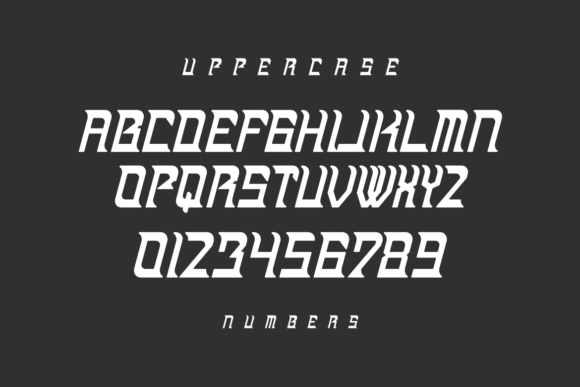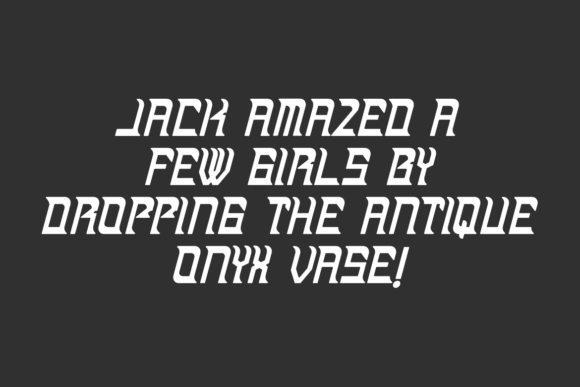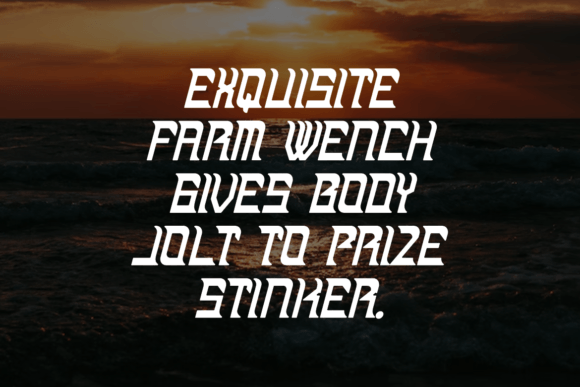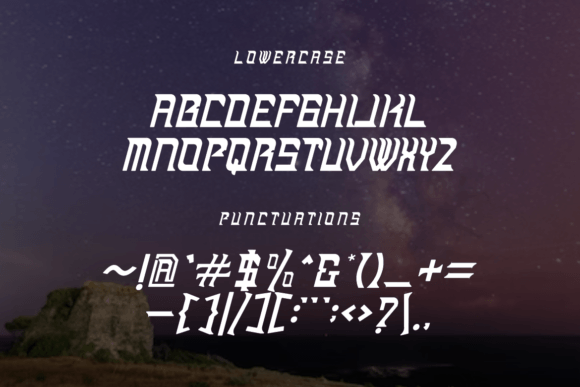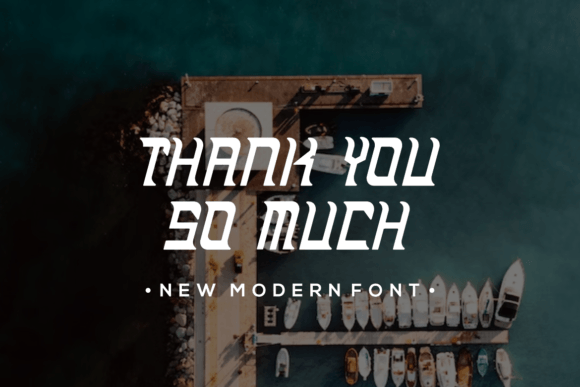
Windiya Font
WINDIYA FONT SPECIMEN
Windiya is a slab serif font that feels beautiful classy, elegant, and modern. This font is perfectly suited for a wide variety of projects, such as signature, stationery, logo, wedding, typography quotes, magazine or book covers, website headers, clothing, branding, packaging design, and more.